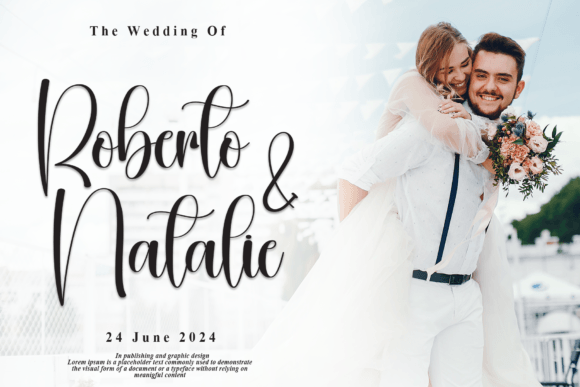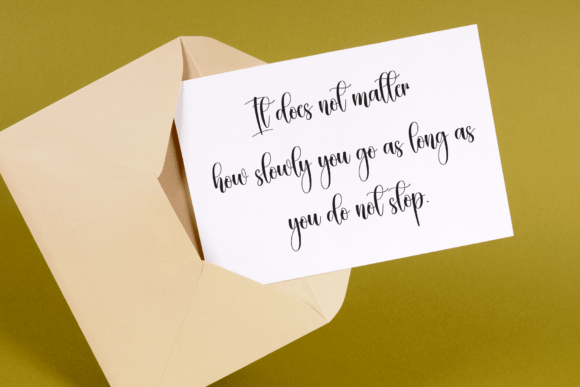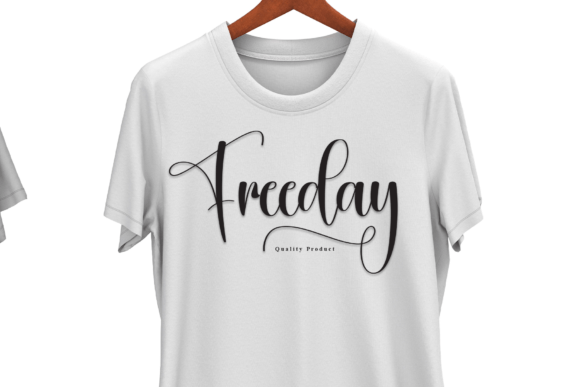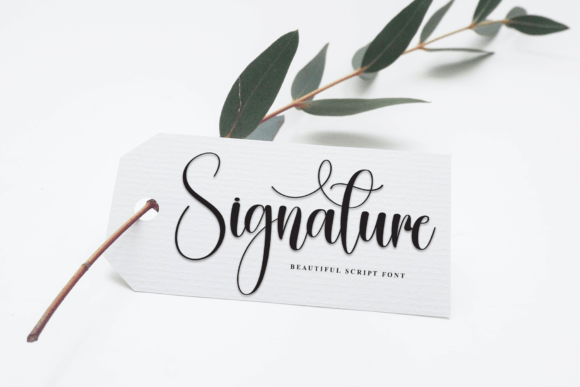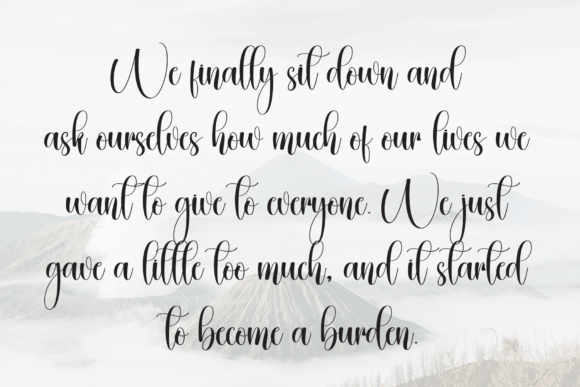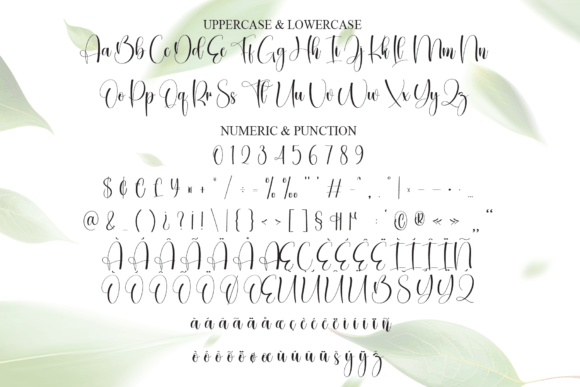
The Elegance of Eucalyptus Font: A Designer’s Delight
I still remember the design project that led me to discover the Eucalyptus font. I was working on a wedding invitation suite, and my client wanted a sophisticated yet personal touch. I had spent hours browsing through font libraries, but nothing seemed quite right. That’s when I stumbled upon Eucalyptus, and it instantly captivated me with its fluid strokes and natural flow. It was as if the font was made for that project, and I’ve been hooked ever since.
A Personal Review of Eucalyptus Font
- ✨ Elegant and charming, perfect for adding a personal touch to designs
- ✅ Fluid strokes and natural flow create a captivating, sophisticated look
- 💫 Perfect for invitations, branding, social media, and more
- 🌈 Brings a sense of warmth and creativity to any design
While Eucalyptus is an amazing font, there are a few things to keep in mind:
- 🤔 Some letters may not connect perfectly, which can be noticeable at larger font sizes
- ⚠️ Limited availability of stylistic alternates, which might limit its versatility
- Experiment with OpenType features, such as ligatures and stylistic alternates, to add personality to your text
The Backstory of Eucalyptus Font
Eucalyptus was designed by a talented type designer who wanted to create a font that exuded elegance and charm. Inspired by the natural world, the designer crafted a font that flows like a river and shines like the sun. While the designer’s story is fictional, the font’s beauty and versatility are very real.
| Font Name | Eucalyptus Font |
| What is Eucalyptus font best used for? | Eucalyptus is perfect for adding a personal touch to invitations, branding, social media, and more. |
| Does Eucalyptus support OpenType features? | Yes, Eucalyptus supports OpenType features, including ligatures and stylistic alternates. |